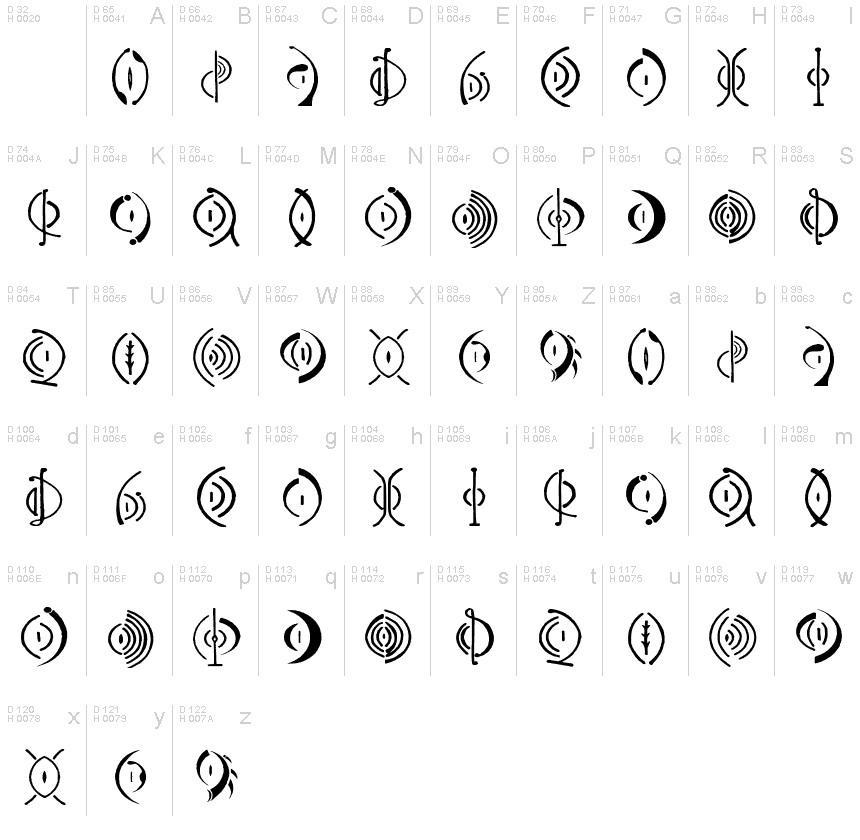
Vulva Regular
Vulva is a sexy dingbat typeface designed by Bethmalours.
In memory of a Couserannais artist "ARIEGE
See his work at the Museum of the Affabuloscope 09290 Le Mas-d'Azil.
The Musée de l'Affabuloscope is a museum dedicated to the work of the sculptor Claudius de Cap Blanc and located in Le Mas d'Azil in Ariège. It has an exhibition space of 1500m².
In memory of a Couserannais artist "ARIEGE
See his work at the Museum of the Affabuloscope 09290 Le Mas-d'Azil.
The Musée de l'Affabuloscope is a museum dedicated to the work of the sculptor Claudius de Cap Blanc and located in Le Mas d'Azil in Ariège. It has an exhibition space of 1500m².